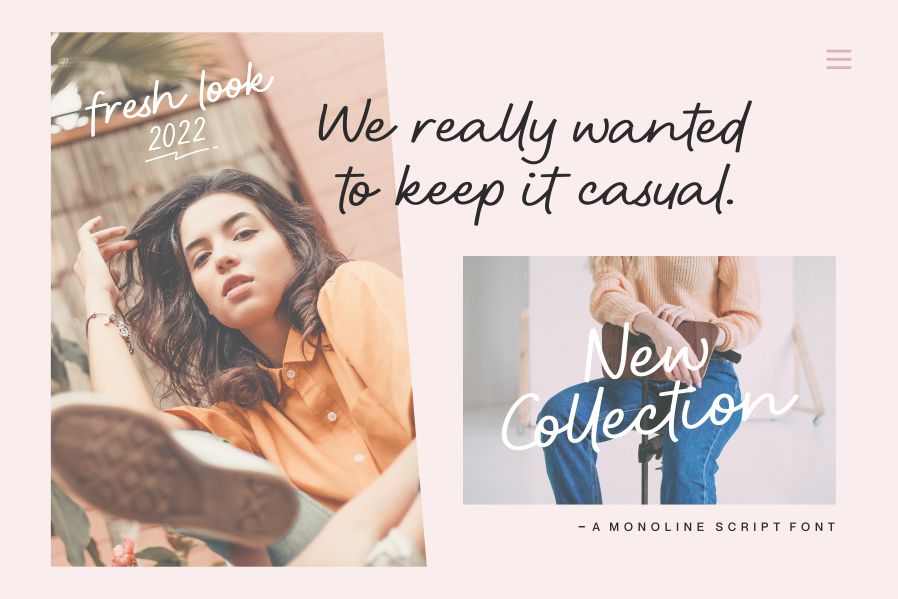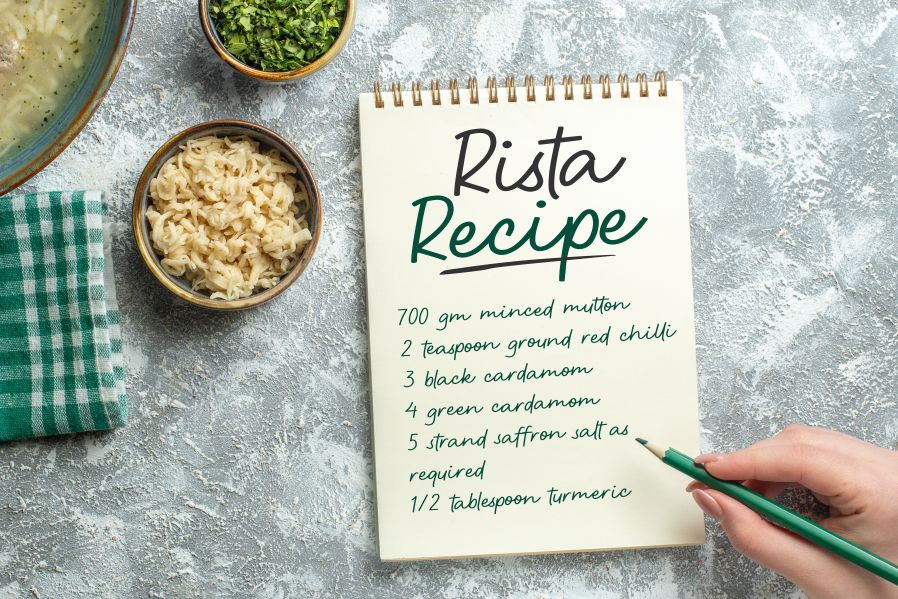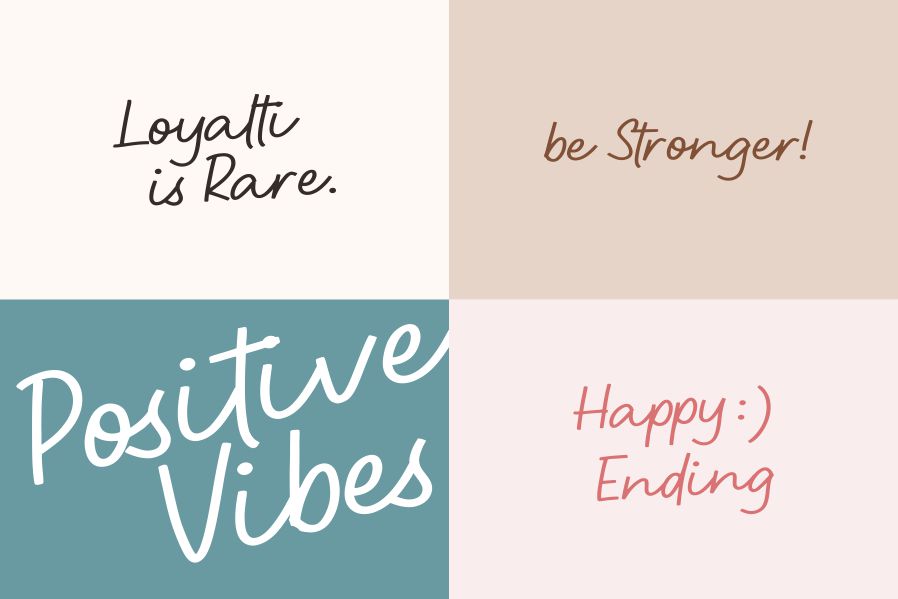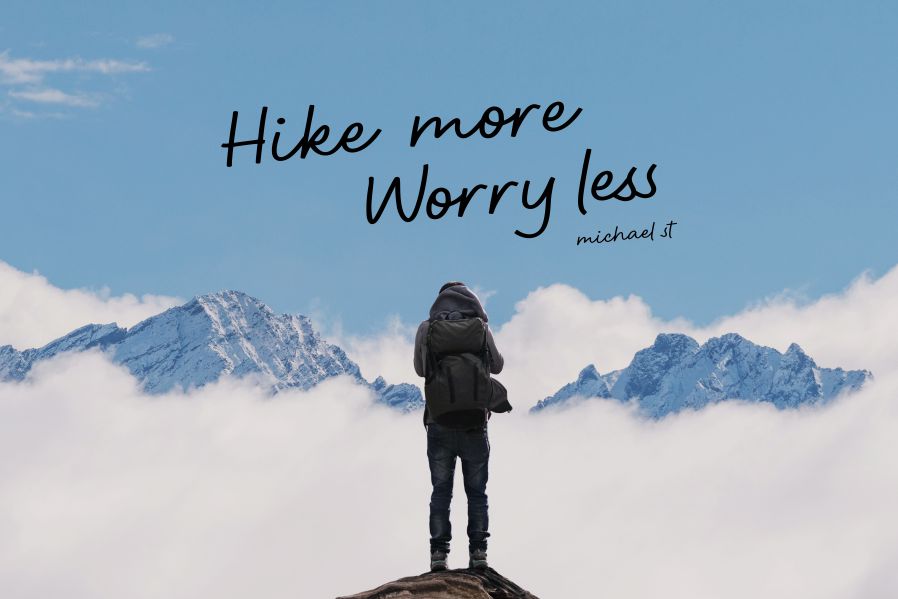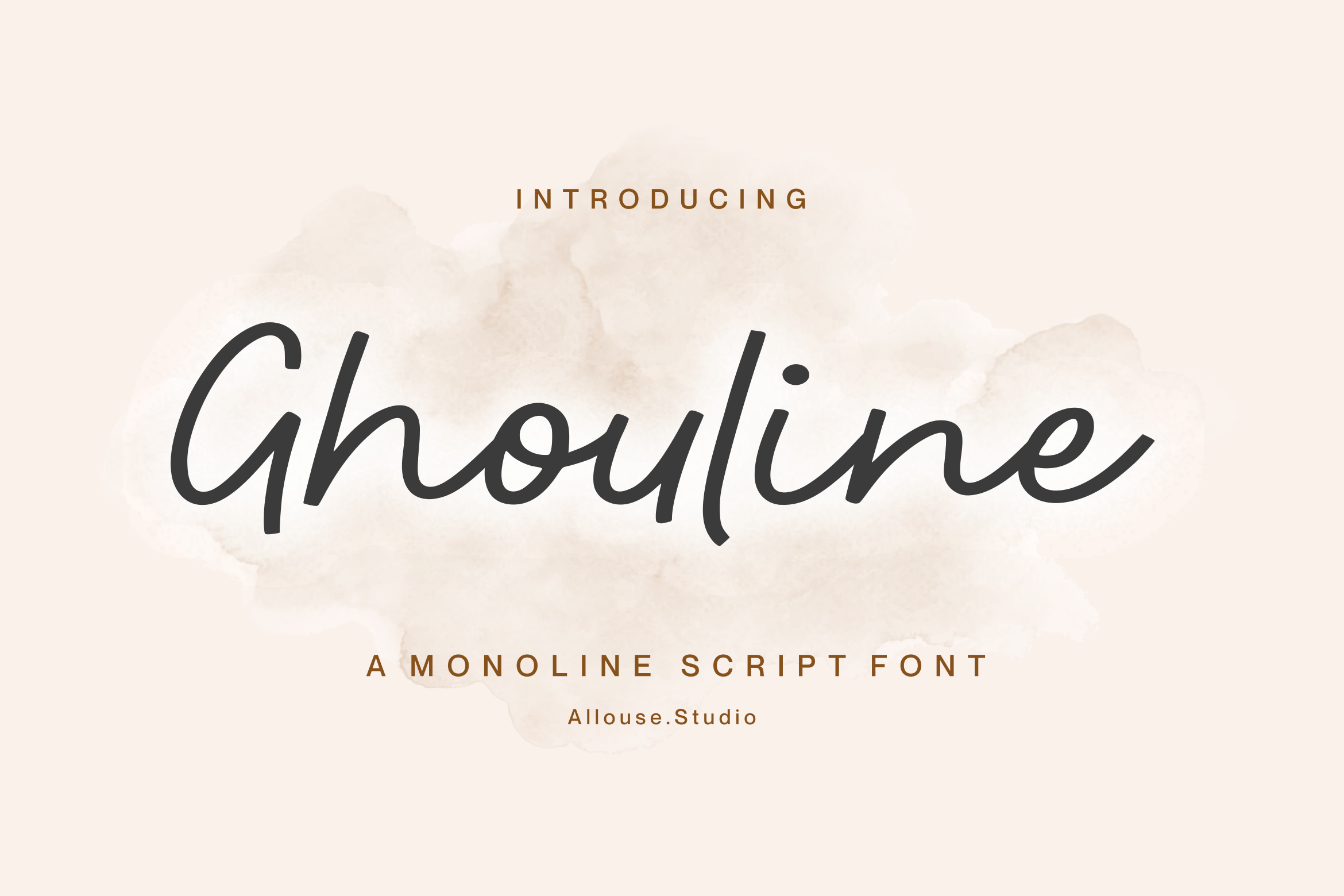
Ghouline Font
Ghouline Handwritten Font
This is a delicate script font. It is perfect for product packaging, branding project, magazine cover, social media, invitation, or just used to express words above the background.